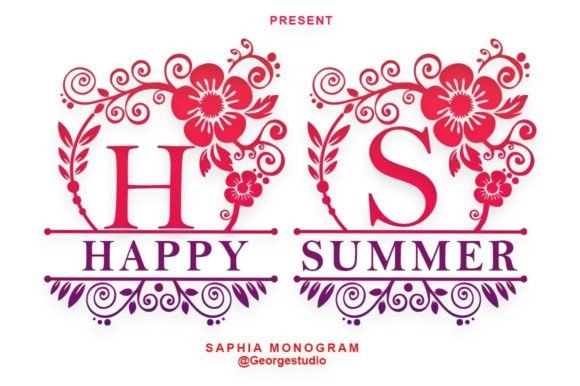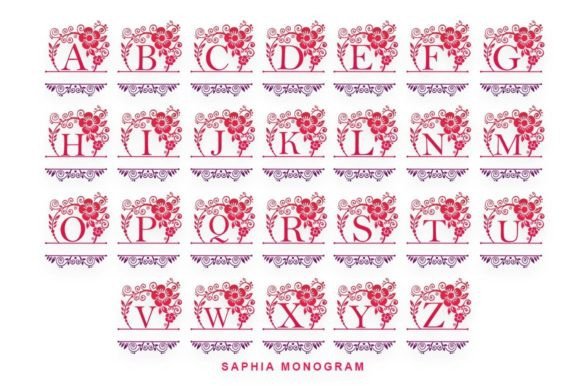
Introduction to Saphia Monogram Font
Saphia Monogram is an elegant decorative font, featuring lovely ornaments.
Fall in love with its authentic feel and use it to create gorgeous wedding invitations, beautiful stationary art, eye-catching social media posts, and cute greeting cards .
Key Features of Saphia Monogram Font
Why Choose Saphia Monogram Font?
Saphia Monogram Font offers exceptional quality and versatility, making it a valuable addition to your design toolkit. Whether you’re creating for personal projects or commercial use, Saphia Monogram Font delivers professional results.